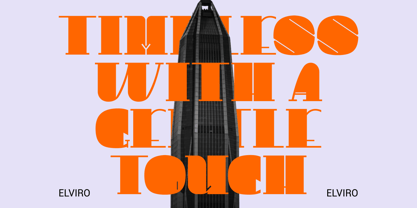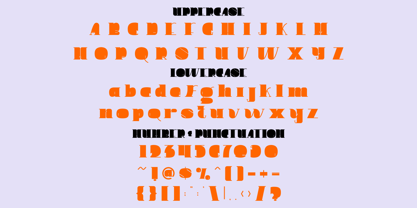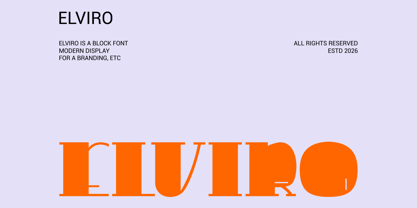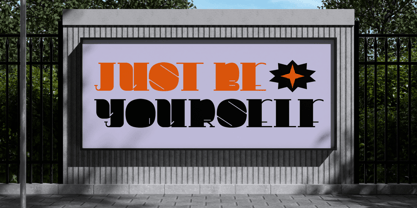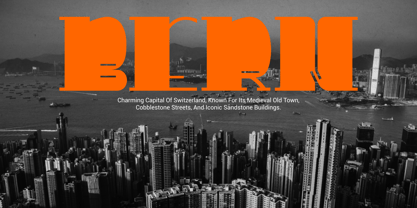
Elviro
by Shanaf
The Elviro Font Family was designed by Yesie Erma Yunita and published by Shanaf. Elviro contains 1 styles. More about this family
Elviro Block Font is a bold display typeface built with strong geometric structure and solid forms. The letterforms feature thick strokes with compact proportions and minimal contrast. Each character appears wide and heavy, creating a dense and powerful visual weight. The edges are mostly sharp with occasional curved cuts that add subtle uniqueness. The counters are tight and controlled, enhancing the solid block appearance. Stroke consistency keeps the structure stable and highly legible in large sizes. Elviro Block Font blends modern block style with a slightly industrial tone. The design communicates strength, confidence, and clarity. It works effectively for logos, branding systems, and bold headline typography. The compact and heavy structure creates a commanding presence in visual communication. Designers can use this typeface for logo design, corporate branding, and advertising headlines. It fits well with themes related to urban business, construction, technology, and modern industries. The bold shapes ensure high visibility for posters, signage, and promotional materials. Elviro Block Font also works well for magazine titles, book covers, packaging labels, and campaign graphics. The structured letterforms support strong brand identity and consistent messaging. Businesses such as real estate, architecture firms, tech companies, and industrial brands can benefit from this font style.
Designers: Yesie Erma Yunita
Foundry: Shanaf
Shanaf Design is a foundry specializing in creating versatile and professional fonts. We focus on display fonts, designed to add strong and eye-catching character to various design needs.Our fonts are perfect for products, titles, crafting, and logos, ensuring each creation stands out with a unique identity. Based in Karanganyar, Central Java, Shanaf Design is committed to delivering innovative fonts that inspire designers worldwide.